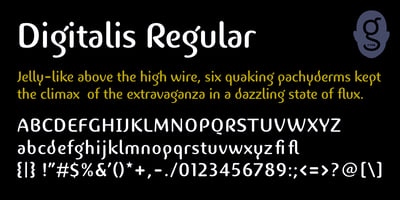
Digitalis Font Family was designed by Nick Cooke and published by G-Type. Digitalis contains 1 styles and family package options. Digitalis was created from a desire to make an original, æsthetically pleasing rounded typeface using the minimum of strokes. Each character has been reduced to only the most essential elements. Due to the contrast between the thick and thin strokes Digitalis is surprisingly legible when set as text.